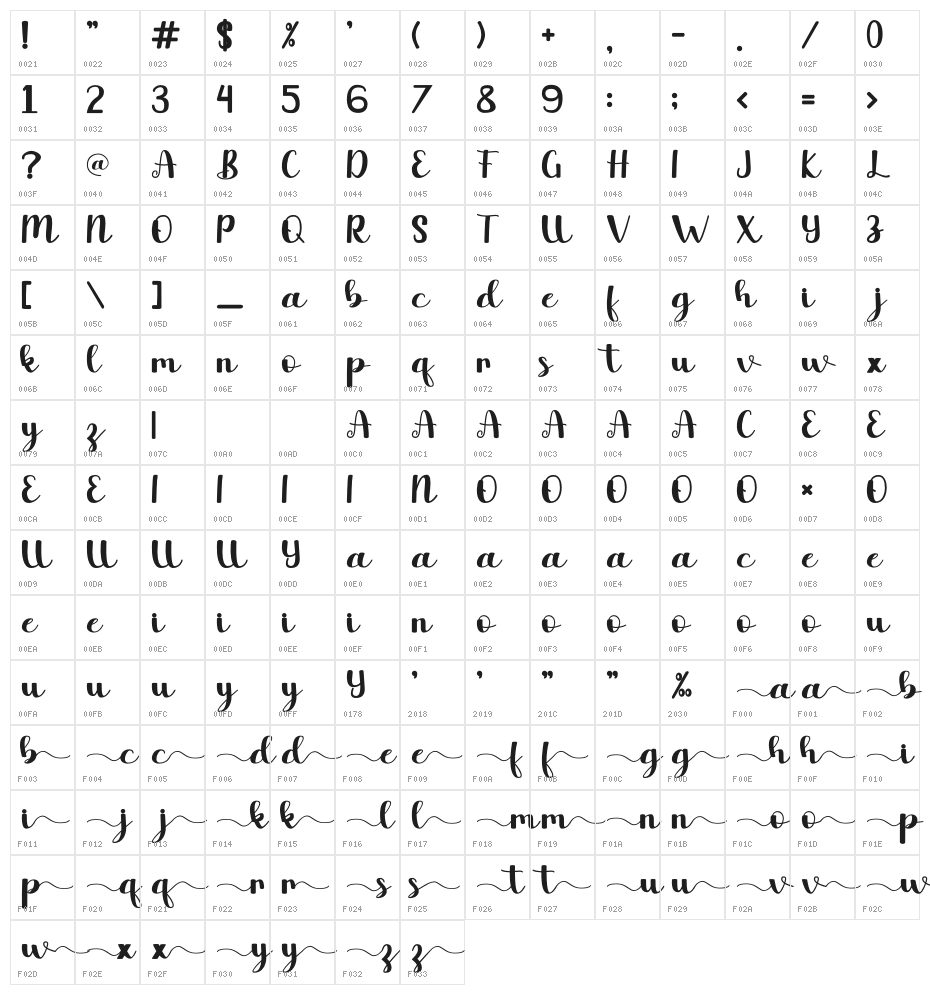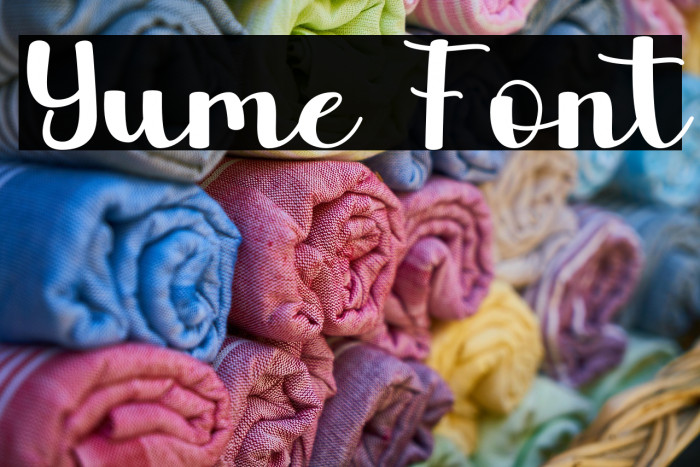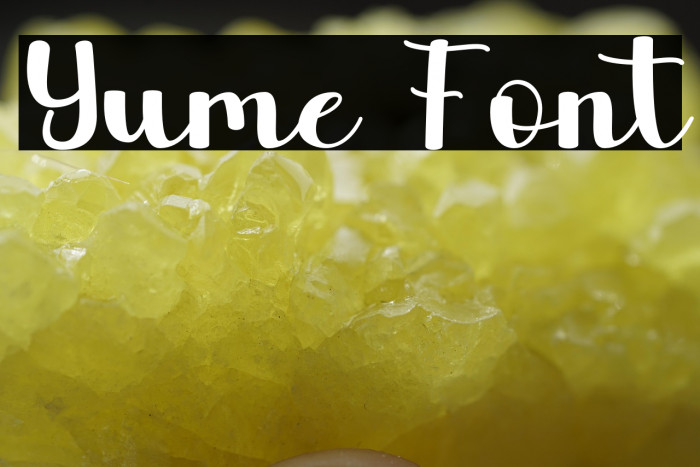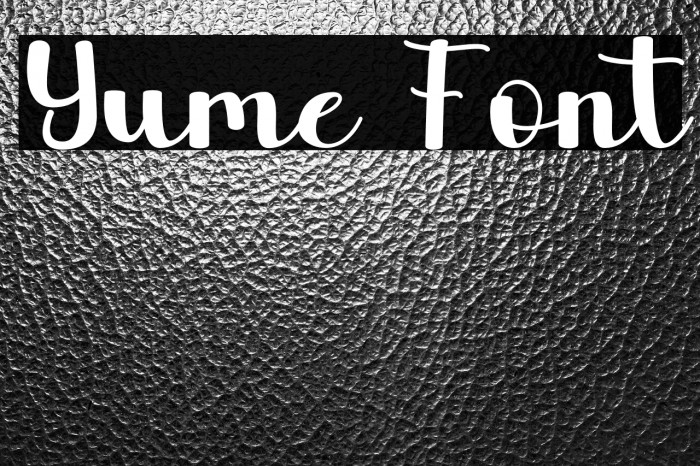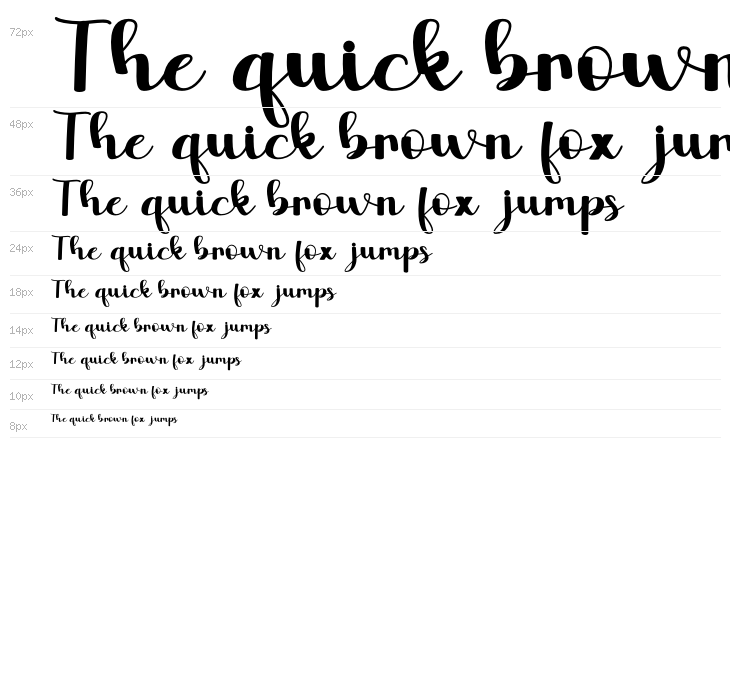
Yume Font
Yume Description
This font features a playful and elegant script style with a handwritten touch. The uppercase letters are bold and slightly whimsical, with unique flourishes that add character. The lowercase letters maintain a consistent flow, enhancing readability while retaining a stylish flair. Numbers are clear and rounded, complementing the overall aesthetic. Special characters are creatively designed, fitting seamlessly with the rest of the font. This font is perfect for projects that require a personal and artistic touch, such as invitations, greeting cards, or branding materials. Its balance of elegance and playfulness makes it versatile for various design needs.
| Proposed Projects | Ideal for invitations, greeting cards, branding, and artistic projects. |